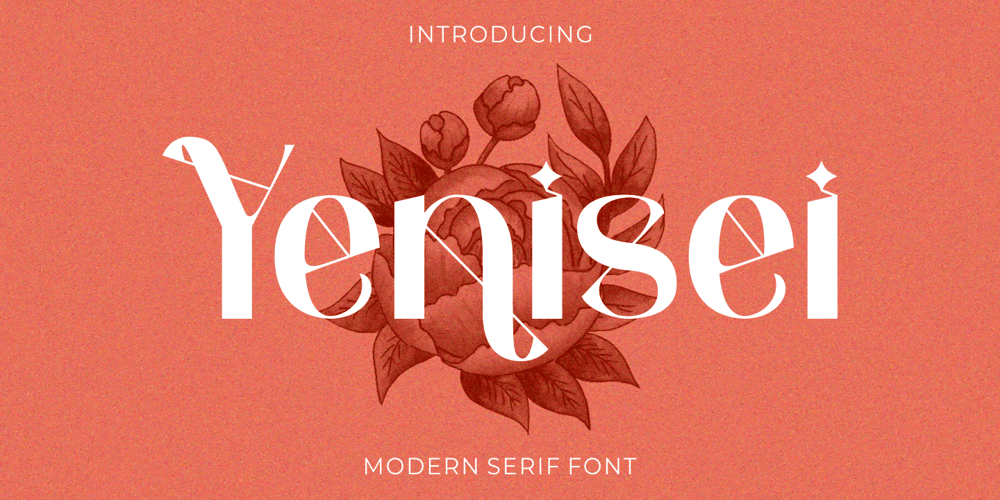
Yenisei Font Family was designed by Putra Novembria Candra Kusuma and published by Putracetol. Yenisei contains 1 styles and family package options. Introducing Yenisei – a modern serif font inspired by unique typography and lettering found in luxury serif styles, combined with modern typography elements. Yenisei features modern ligatures that allow you to create beautiful lettering and artwork. The font also comes with open type features, including alternate glyphs and end swashes, providing you with creative options for your designs.Yenisei is perfect for a wide range of design projects, such as logotypes, headings, covers, posters, logos, quotes, product packaging, headers, merchandise, social media graphics, greeting cards, and more. Its versatility makes it suitable for various design applications, adding a touch of elegance and modernity.To access the alternate glyphs, you will need a software program that supports OpenType features, such as Adobe Illustrator CS, Adobe Photoshop CC, Adobe InDesign, or Corel Draw. This allows you to fully utilize the font’s design possibilities and create unique compositions.Your zip package will include the Yenisei font files in otf, ttf, and woff formats, providing compatibility for different design projects. The font includes uppercase and lowercase letters, numerals, punctuation, and symbols, giving you all the essential elements for your designs.Yenisei also supports multilanguage characters, making it suitable for designing in various languages. Whether you’re creating designs in English, Spanish, French, or any other language, Yenisei has you covered.In summary, Yenisei is a modern serif font that offers unique typography and lettering with a touch of luxury and modernity. With its open type features, multilanguage support, and versatile design applications, Yenisei is a great choice for your creative projects. Thank you for choosing Yenisei from our collection. Happy designing!